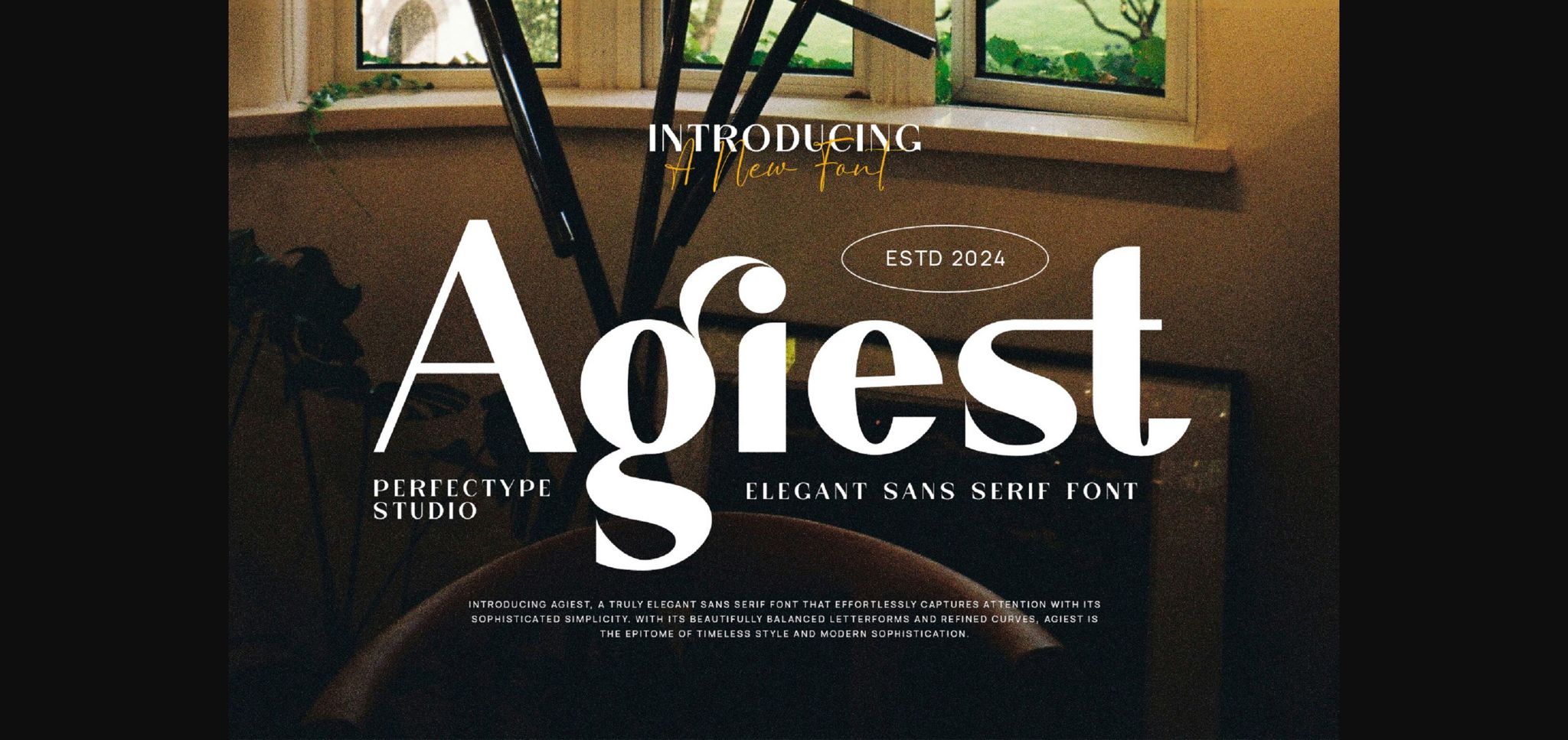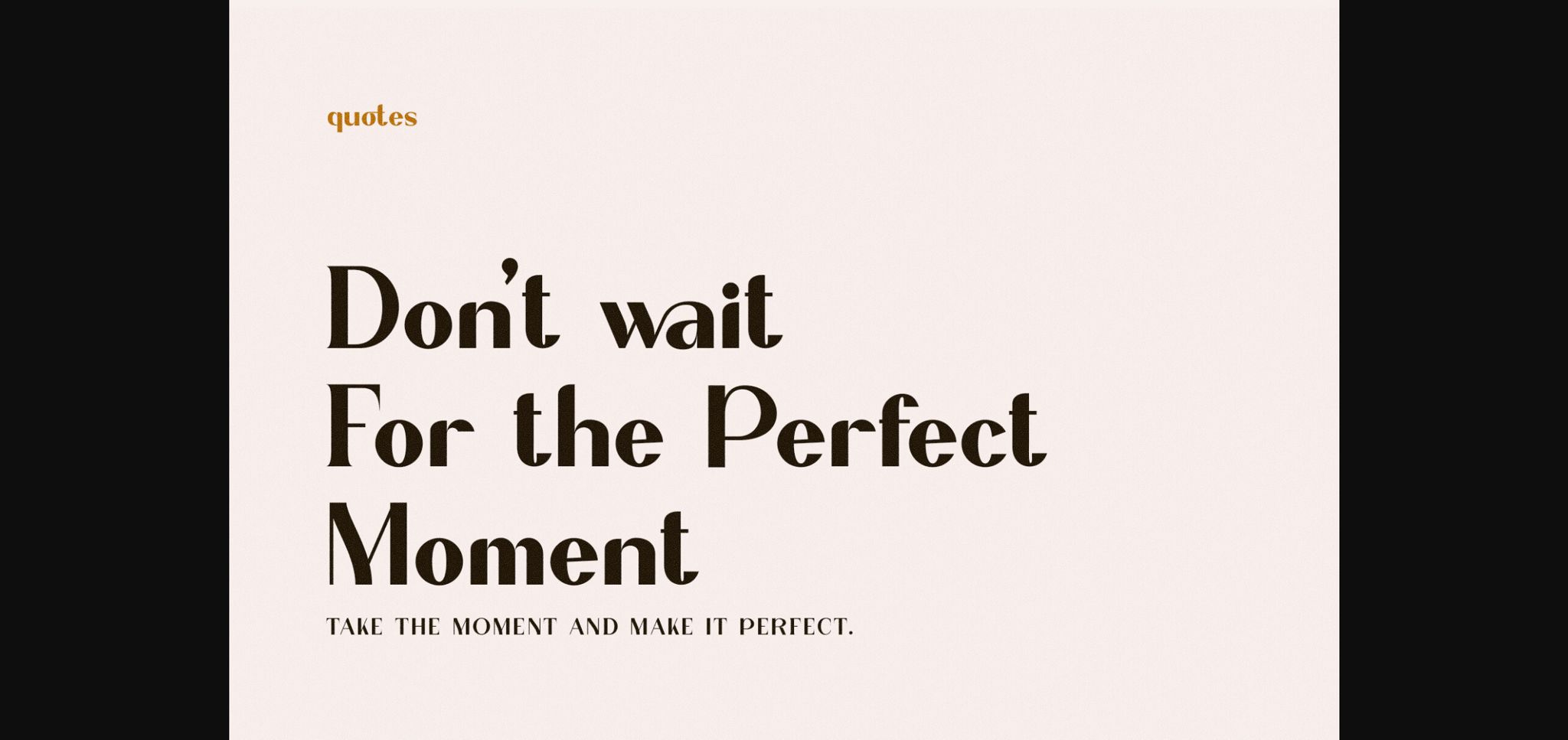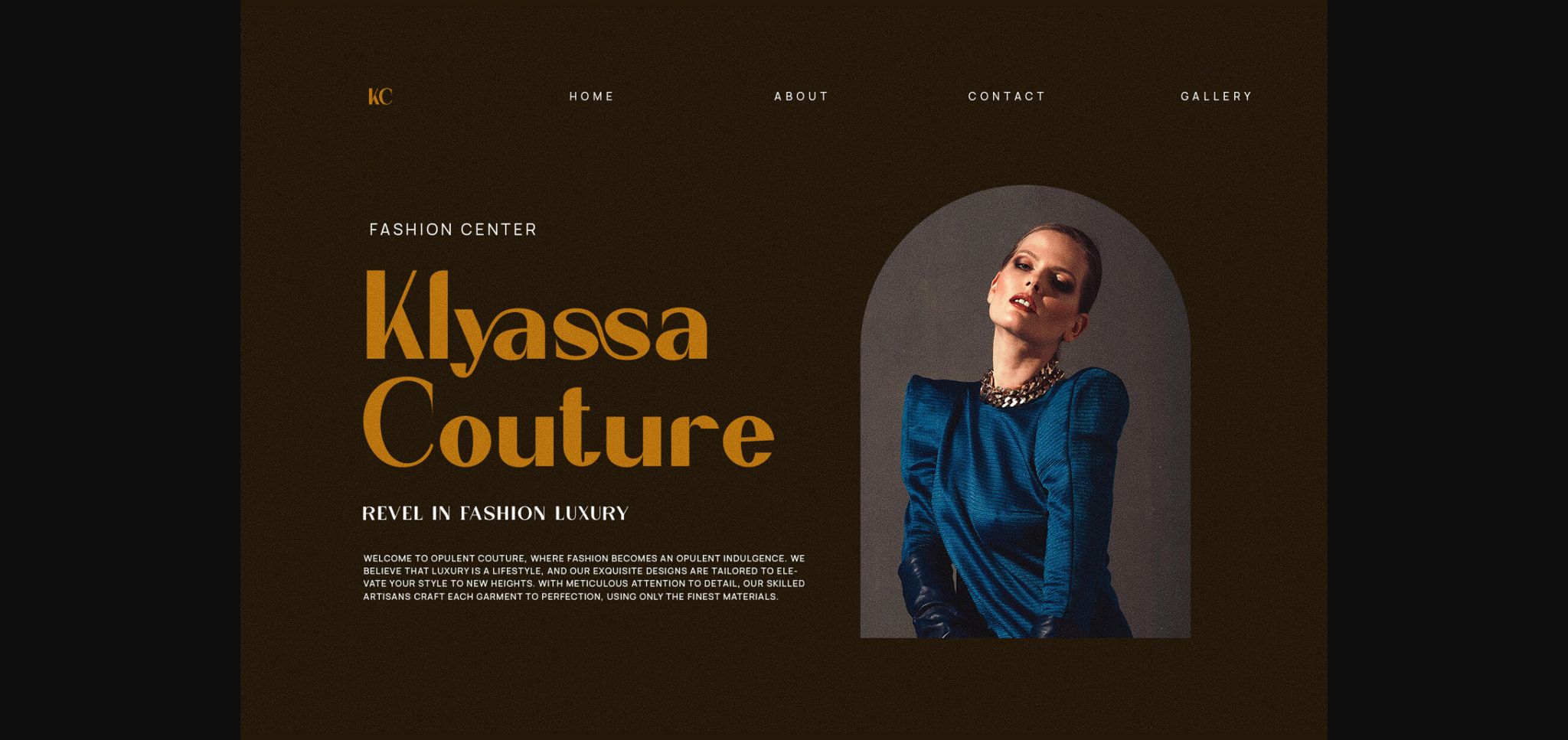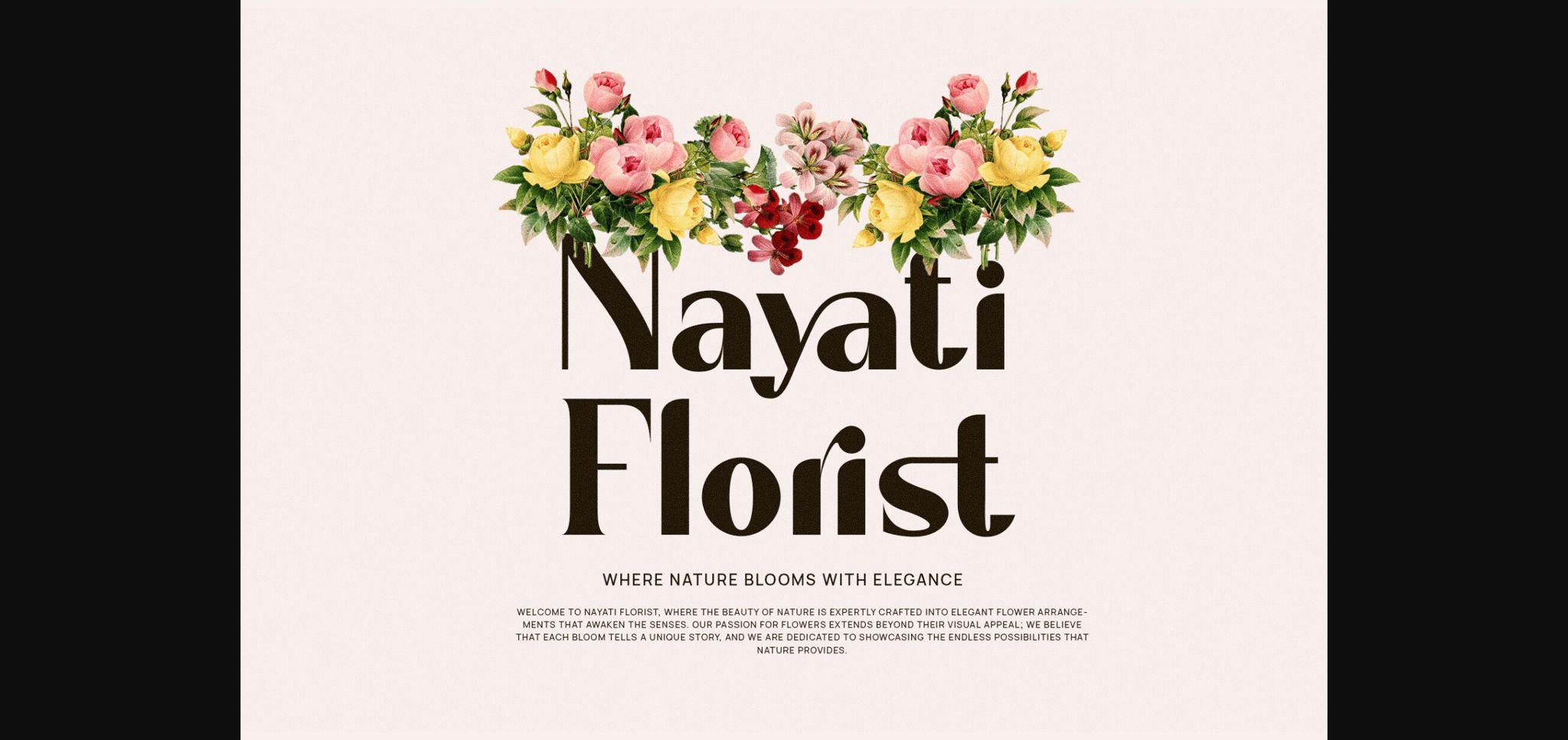
About Agiest Font
Agiest is an elegant serif typeface combined with a classy and modern style. This type of font is very suitable for your various needs such as branding projects, logos, wedding designs, social media posts, advertisements, product packaging, product designs, labels, photography, watermarks, invitations, stationery, and any project, created with high level of readability.